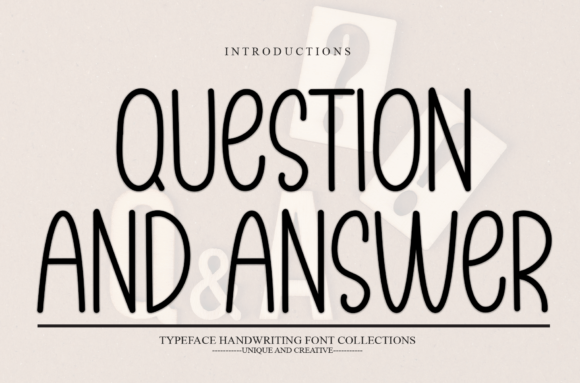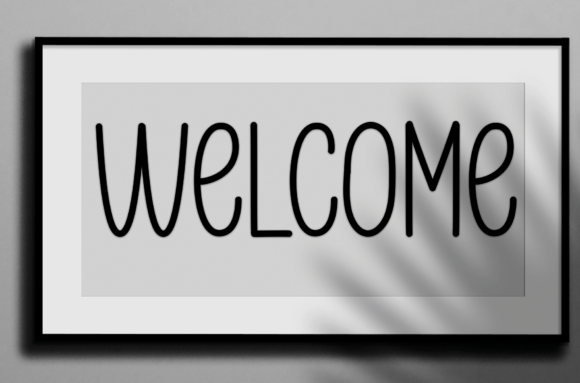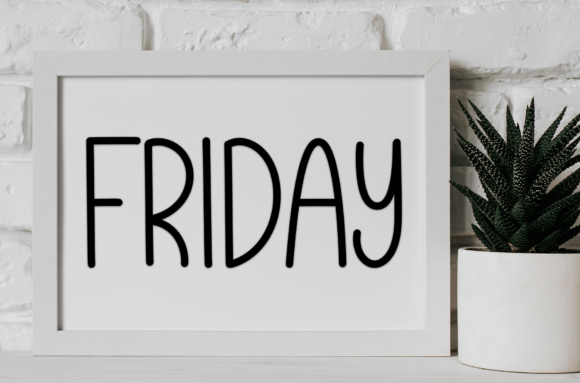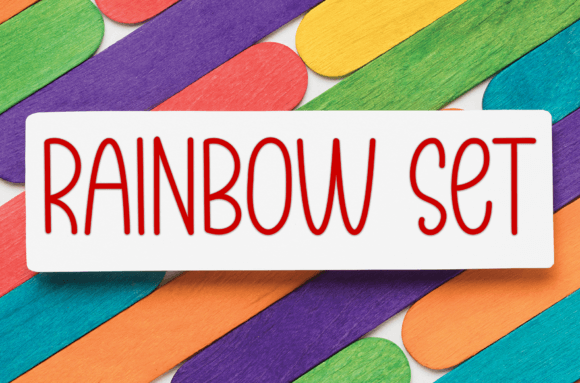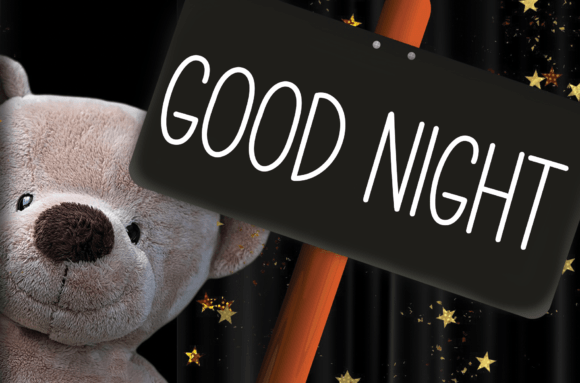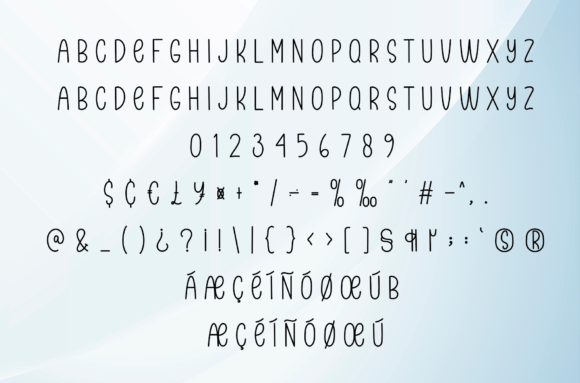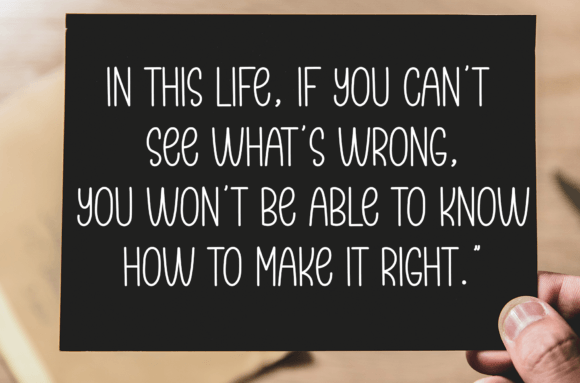
Question and Answer
About Question and Answer
this is a sweet and friendly handwritten display font. Cute and fun, this font is ideal for writing wedding invitations, cards, or any other design that might need a fun touch!